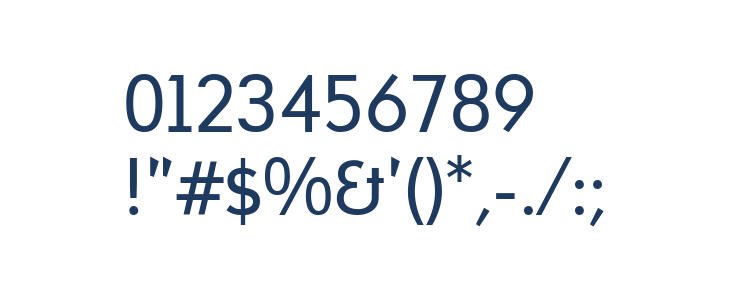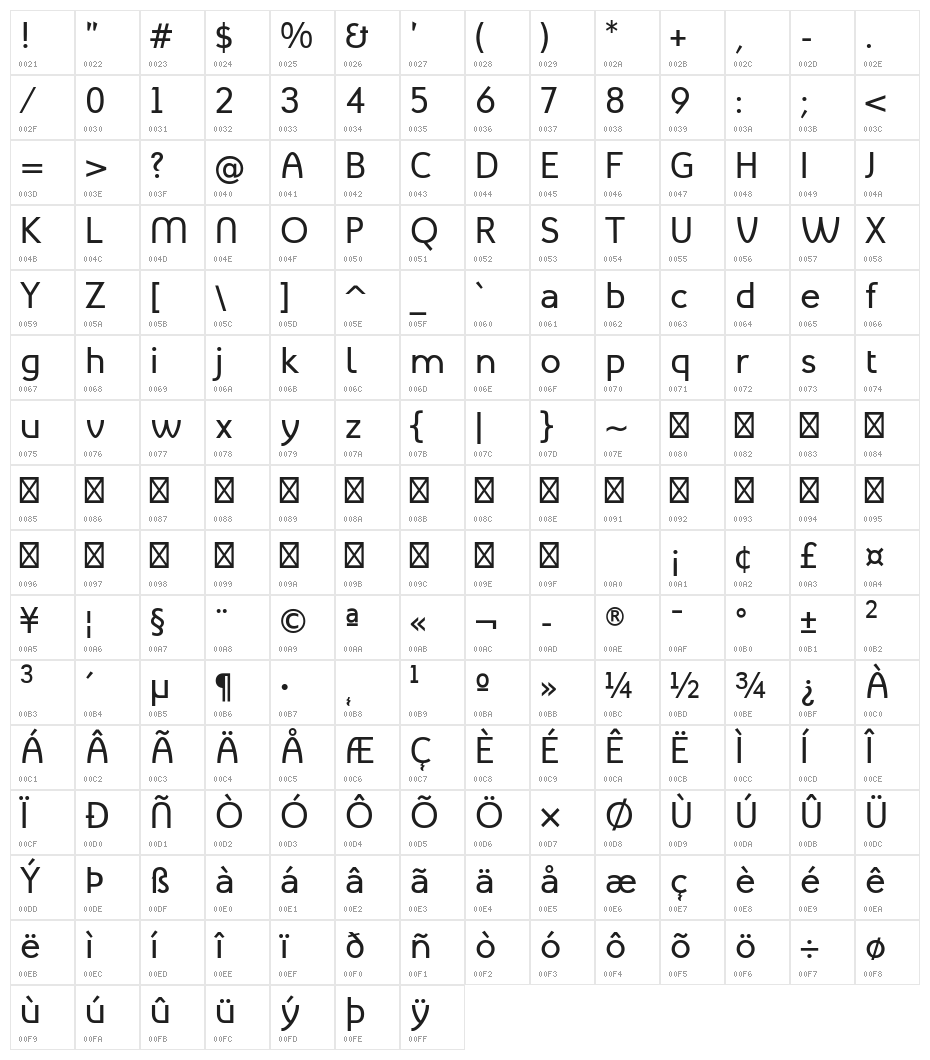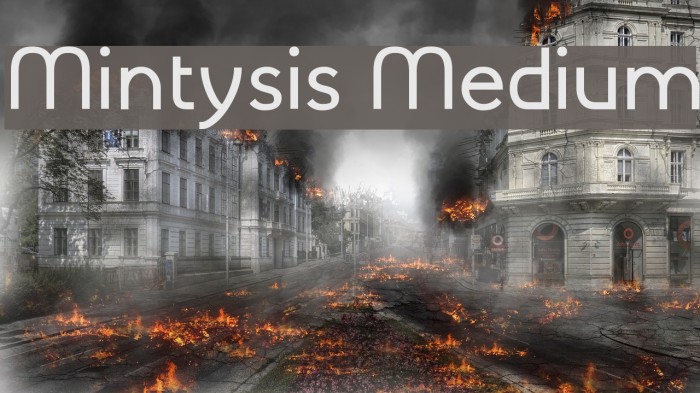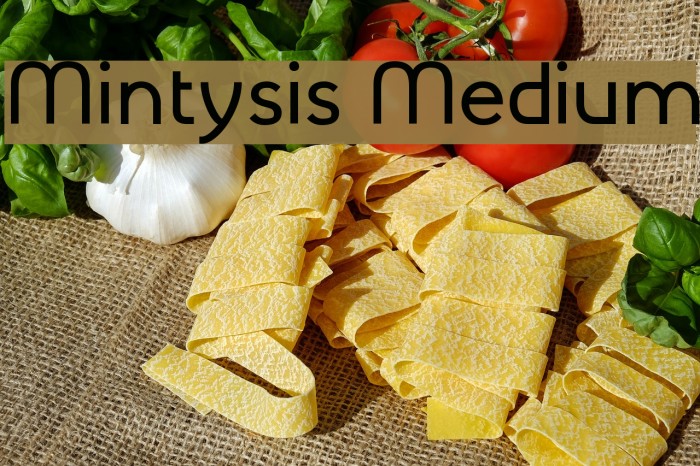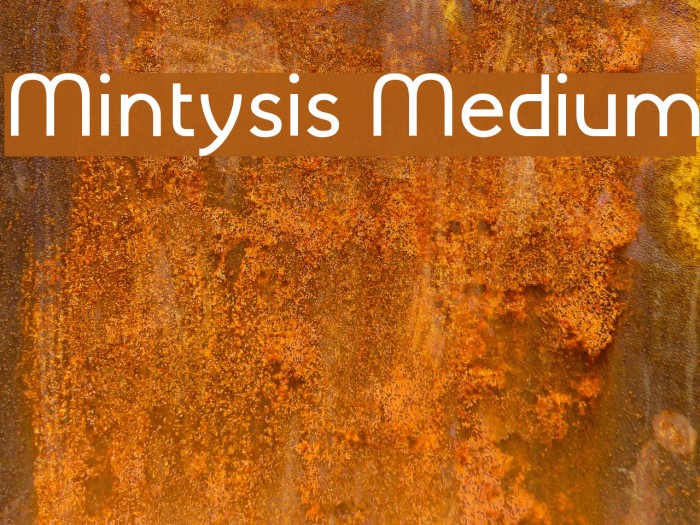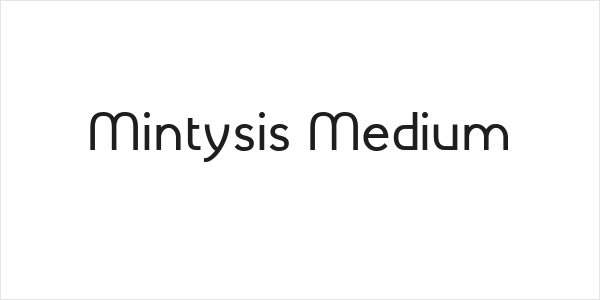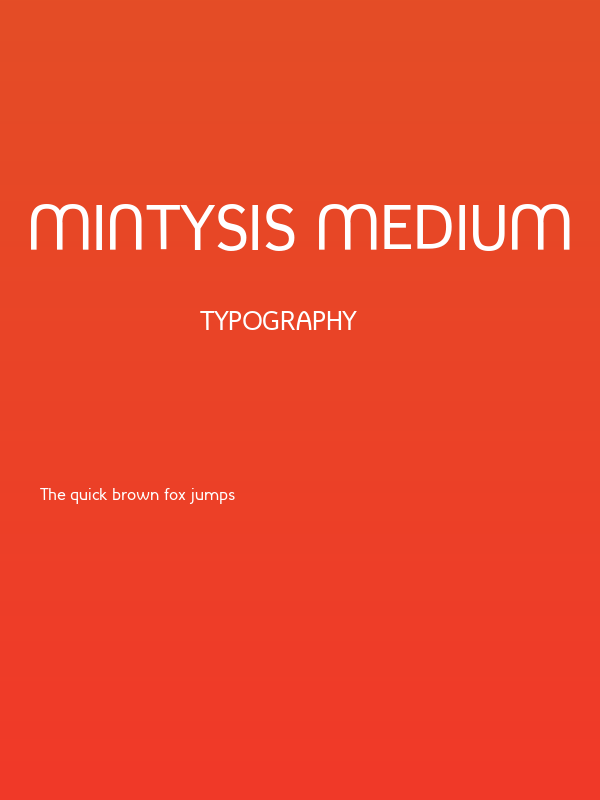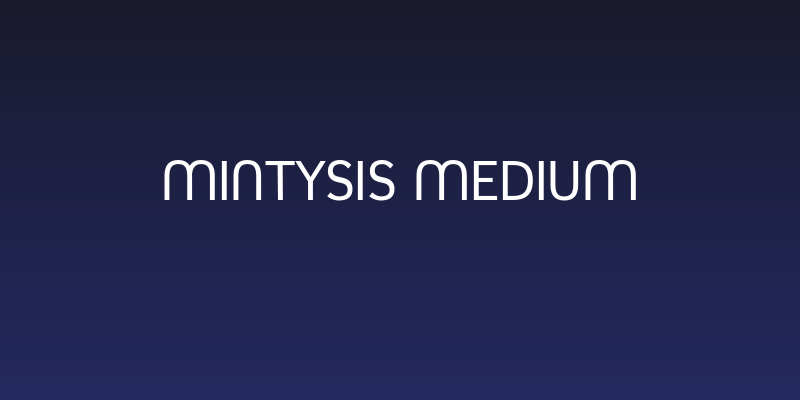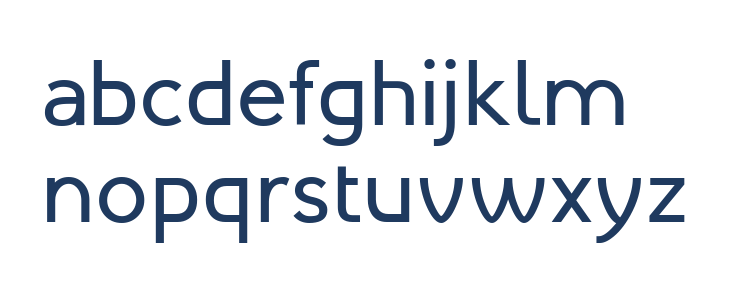
Mintysis Medium Font
Mintysis Medium Description
This font features a clean and modern sans-serif design with smooth curves and a uniform stroke width. The characters are well-proportioned, offering a balanced and harmonious appearance. The uppercase letters are bold and assertive, while the lowercase letters maintain a friendly and approachable look. The numerals are clear and easy to read, making them suitable for various applications. Special characters are distinct and well-integrated into the overall style, ensuring versatility in design projects.
Fonts by Arkandis Digital Foundry
| Proposed Projects | Ideal for branding, web design, advertising, and editorial projects where clarity and modernity are key. |